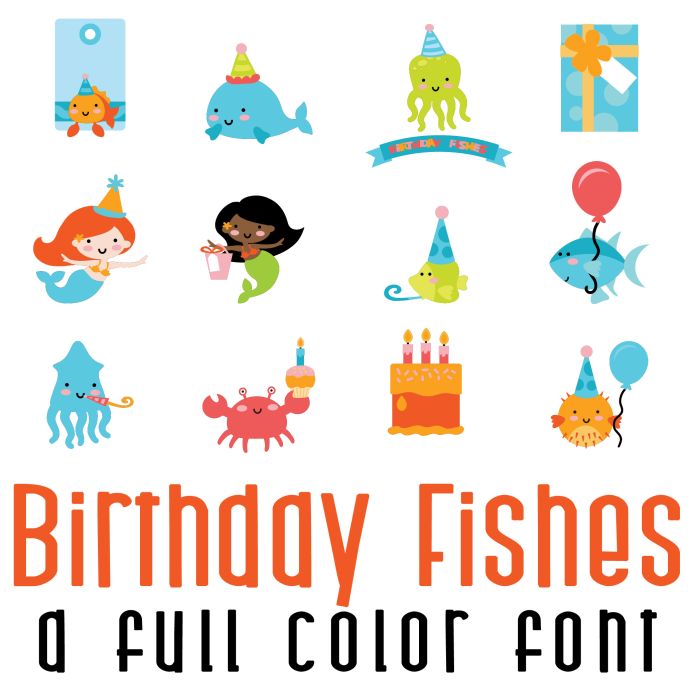
This fun graphic set features 26 underwater animals and mermaids ready to party. Perfect for cards, crafts, gifts, parties, scrapbook pages, planner stickers and more!